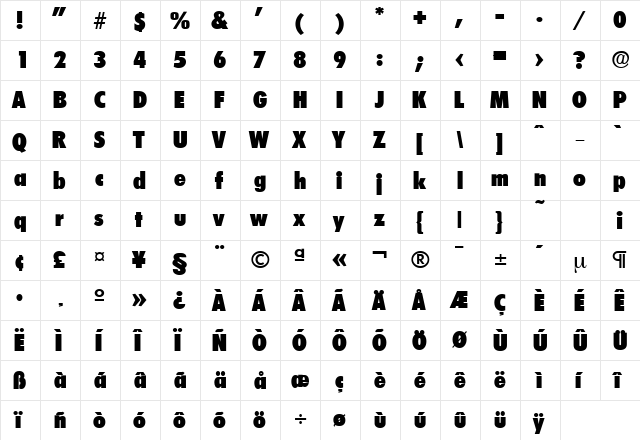
LimerickCond-Serial-Heavy Regular
Design Context for LimerickCond-Serial-Heavy Typeface
LimerickCond-Serial-Heavy takes a measured approach to typography — its balanced proportions and neutral character make it a reliable workhorse for both digital and print work. Its narrow stance lets it pack a punch even in space-constrained designs.
Pro Tip: Use LimerickCond-Serial-Heavy in both headline and body roles to test its range before committing to a single application.